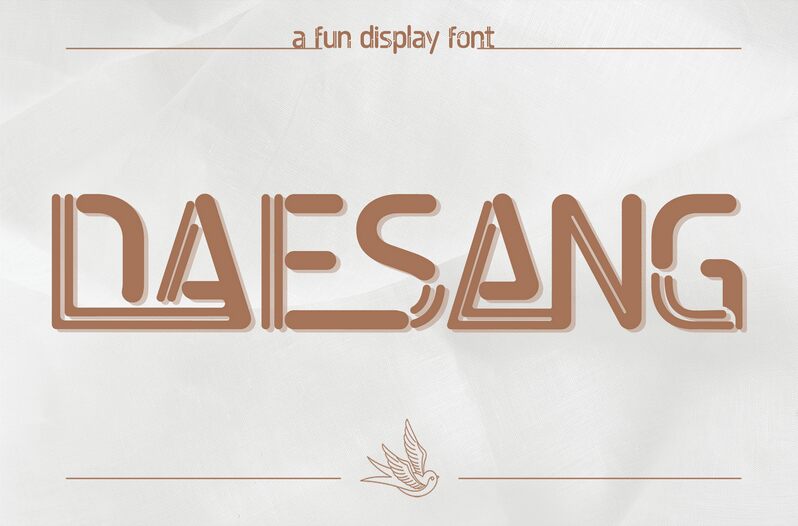
Daesang Space, crafted by 177Studio, is a striking display font that captivates with its futuristic and innovative design. Its bold, geometric shapes and unique cut-out patterns give it a distinct sci-fi aesthetic, making it perfect for modern and avant-garde projects. The letters are meticulously crafted to create a sense of movement and dynamism, evoking the sleek lines of advanced technology and space exploration.
This eye-catching font excels in headlines, posters, branding materials, and digital interfaces where strong visual impact is essential. Daesang Space's unique style makes it an excellent choice for projects aiming to convey innovation, forward-thinking, and creativity. Whether used in tech startups' branding or cutting-edge event promotions, this font ensures your message stands out with futuristic flair.